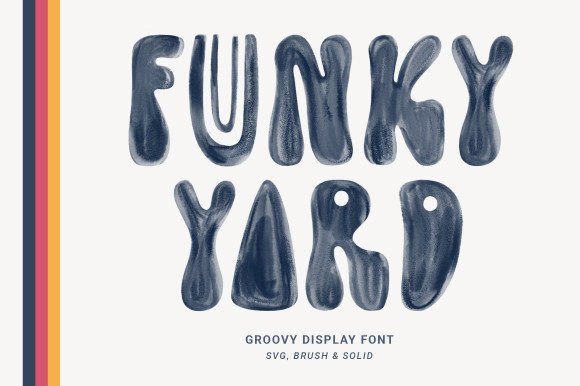
Introducing Funky Yard Font, the ultimate choice for modern design enthusiasts! Created by Prioritype, this fun and groovy display font exudes a whimsical and quirky charm that will instantly captivate your imagination. Whether you're a professional graphic designer or simply someone who loves adding a touch of creativity to their projects, Funky Yard Font is here to elevate your designs to a whole new level of awesomeness!
With its unique blend of retro vibes and contemporary flair, Funky Yard Font is the go-to choice for anyone seeking to infuse their creations with a modern twist. This font family, specifically designed for display purposes, offers an array of eye-catching styles that will make your designs stand out from the crowd. From funky posters to vibrant logos, this font has got you covered!
When it comes to versatility, Funky Yard Font truly shines. Its bold and distinct characters bring a sense of playfulness to any project, making it perfect for branding, advertising, social media content, and so much more. Let your creativity run wild as you explore the endless possibilities this font has to offer!
What sets Funky Yard Font apart from the rest is its ability to evoke emotions and create a connection with your audience. Its captivating style will instantly grab attention and leave a lasting impression. Imagine the impact your designs will have when they are infused with the energy and vibrancy of Funky Yard Font. Get ready to wow your clients, colleagues, and friends with designs that are both visually stunning and emotionally engaging.
But wait, there's more! Funky Yard Font is not just about aesthetics; it's also about functionality. It is meticulously crafted to ensure legibility, even at smaller sizes. This means that whether your design is displayed on a billboard or a tiny mobile screen, every detail will remain crystal clear.